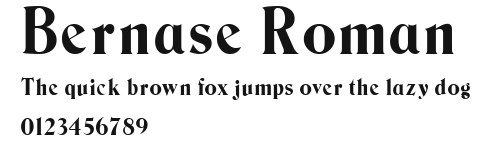
About Bernase Roman.ttf
Bernase Roman.ttf is a modern, elegant sans-serif font designed for ultimate readability and visual harmony. Perfect for branding, headlines, web design, and print materials.